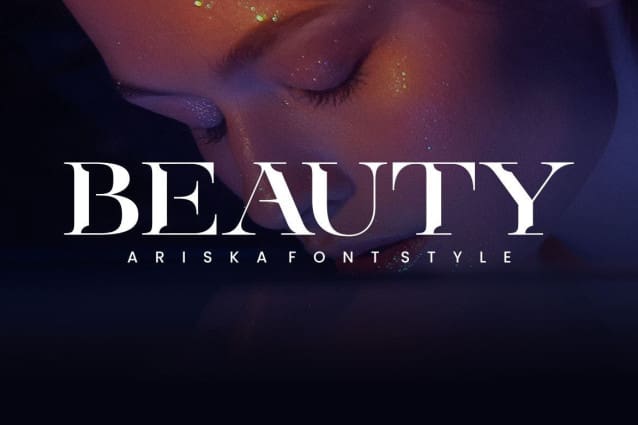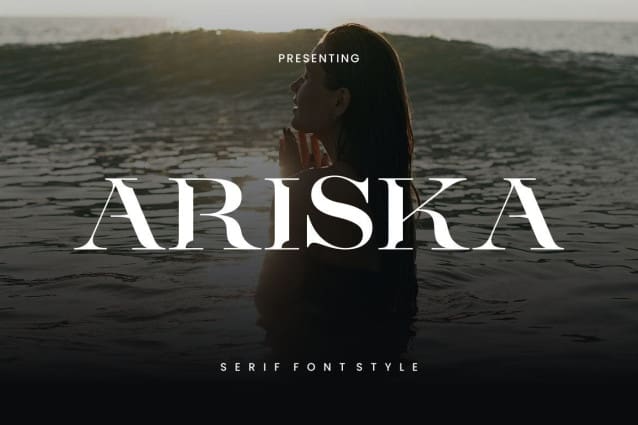
Ariska Font
Ariska Font – a clean, feminine, and modern Decorative typeface. Perfect for many different projects: quotes, blog header, poster, wedding, branding, logo, fashion, apparel, letter, invitation, stationery, etc.